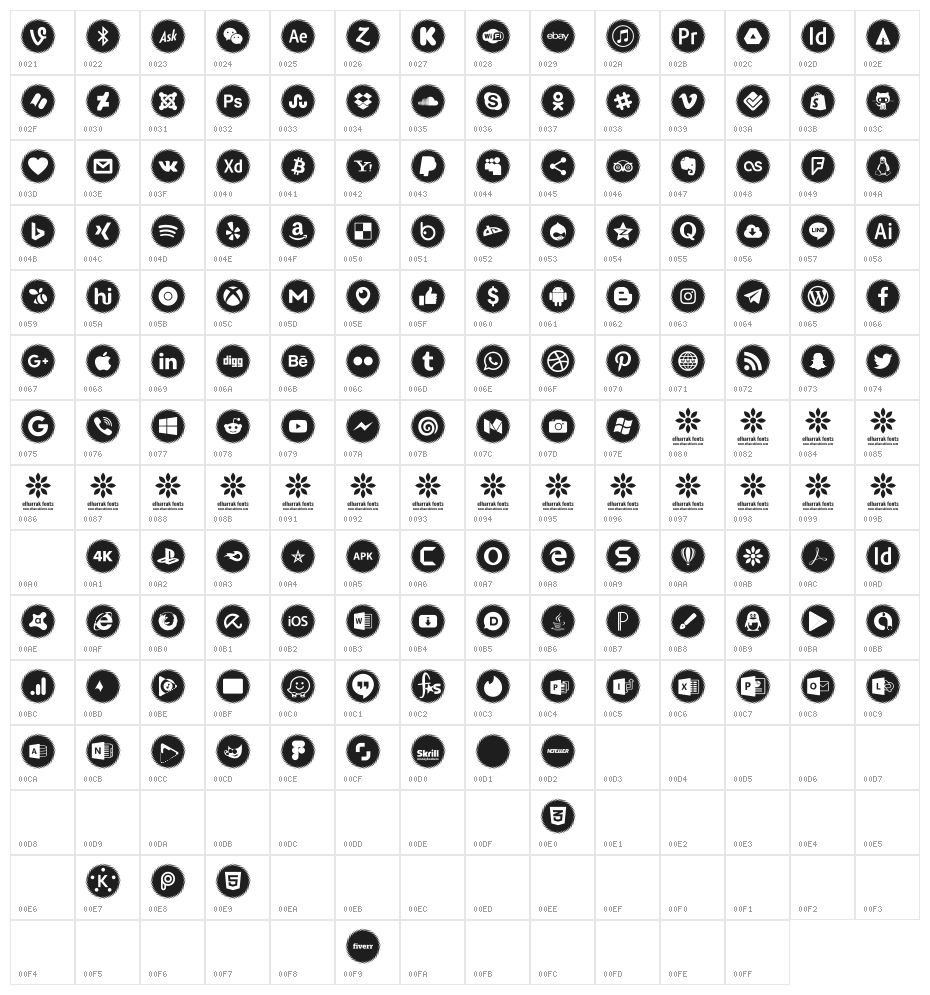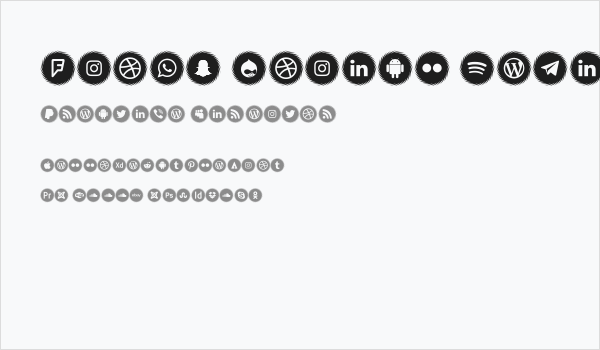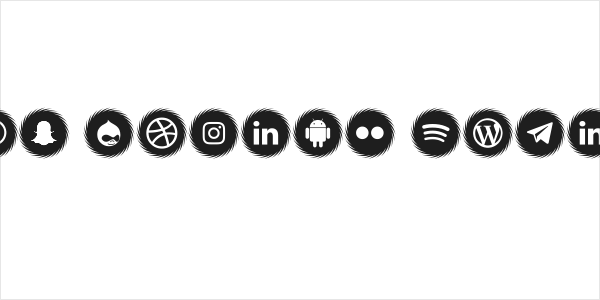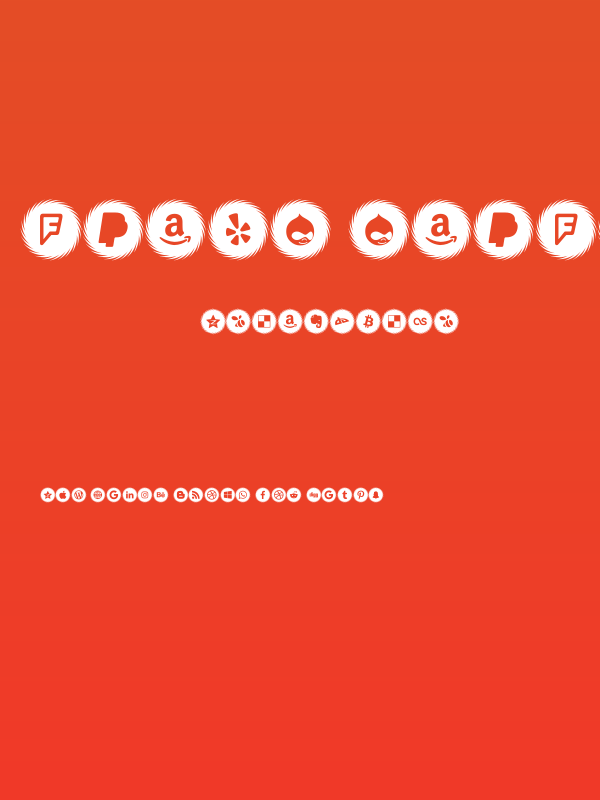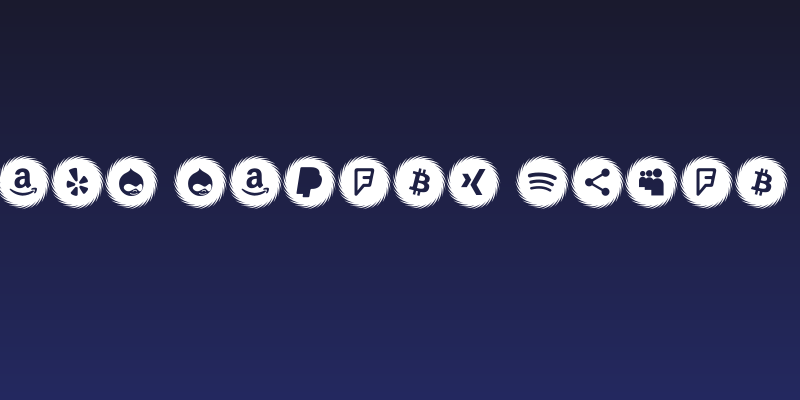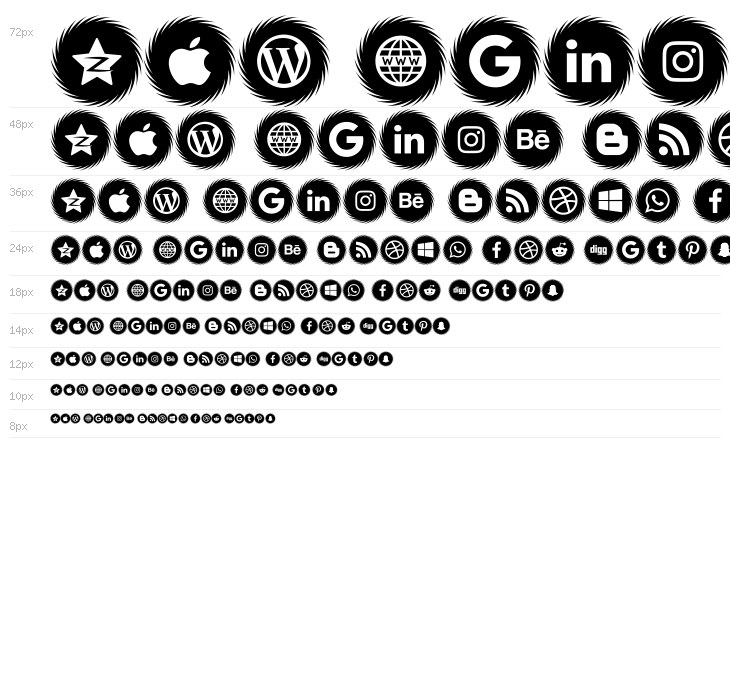
Icons Social Media 15 Font
Icons Social Media 15 Description
A set of social media and technology icons enclosed in circular shapes with a rough, brush-stroke border effect. Each icon is a simplified, monochrome white symbol on a black circular background, representing various popular platforms and services.
| Overall Style | Modern, Grunge |
| Use Case | Icons for social media links, app buttons, digital branding. |
| Proposed Projects | Use in digital interfaces, websites, social media links, app icons, and promotional materials. |